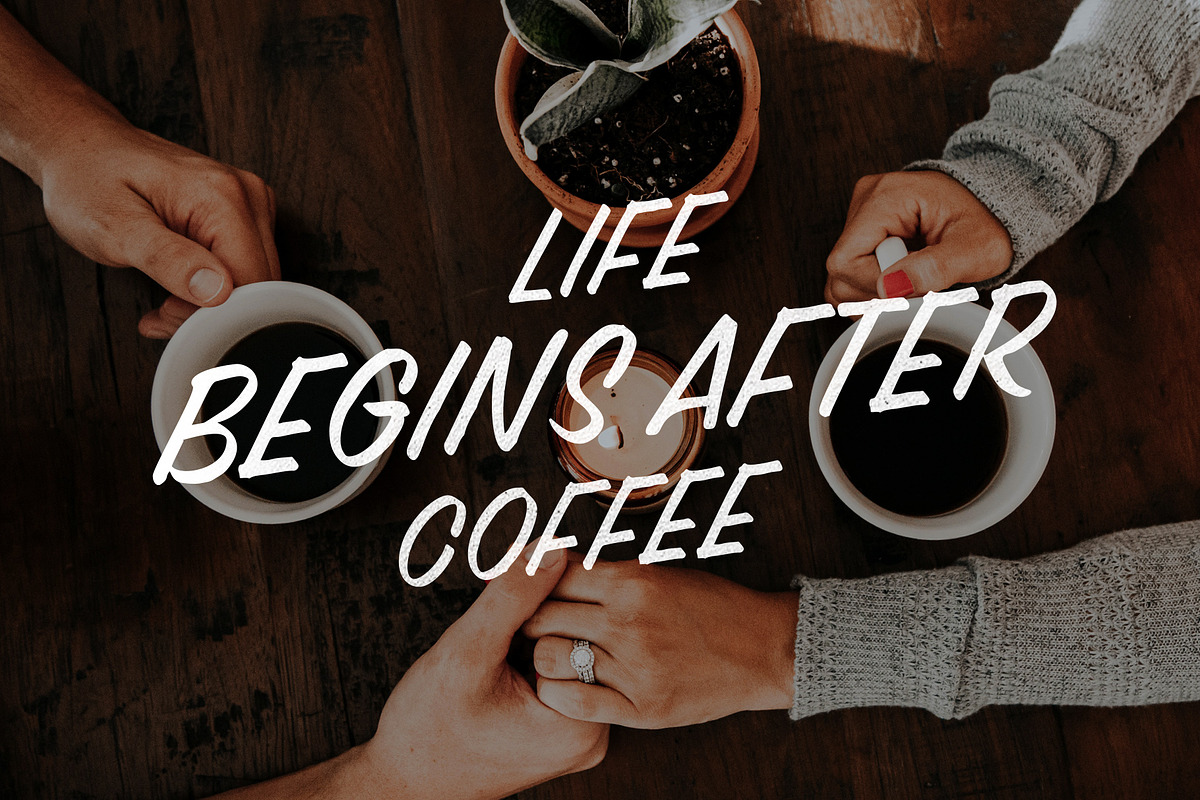
FRUSH AUTHENTIC
FRUSH AUTHENTIC is hand painted typeface designed to help you create the look of stunning custom hand-lettering.
FRUSH AUTHENTIC comes with :
upper and lowercase characters, punctuation, numerals,
FRUSH AUTHENTIC is very best choice fonts for : ,quotes, Posters, Logos, Print Ads, Digital Ads, Promotion Product, video bumper, etc.